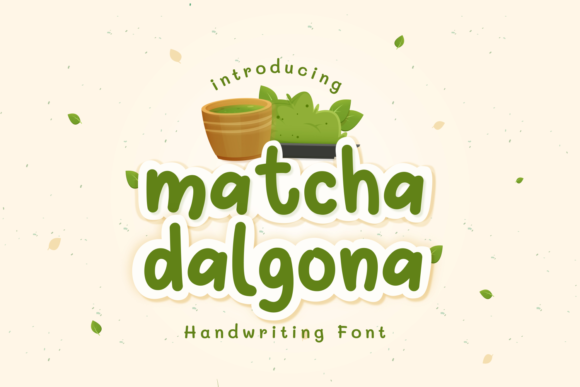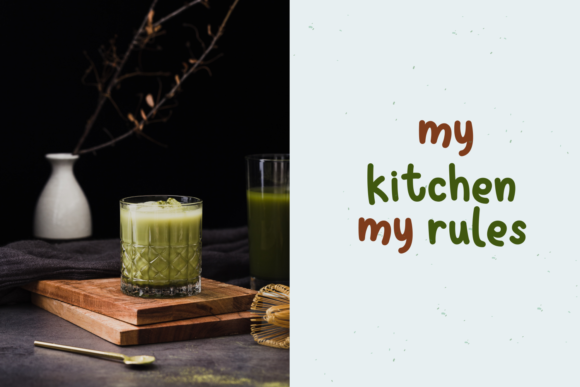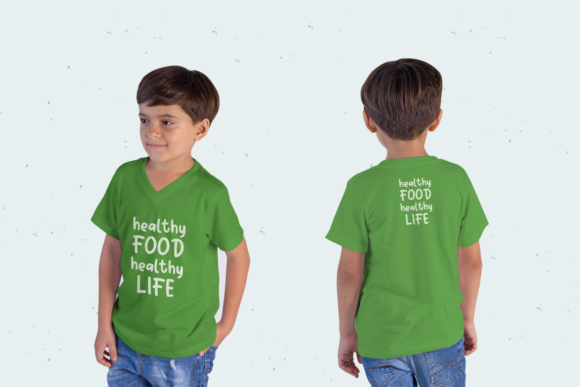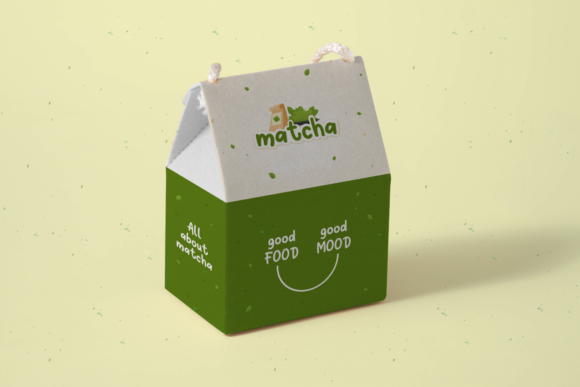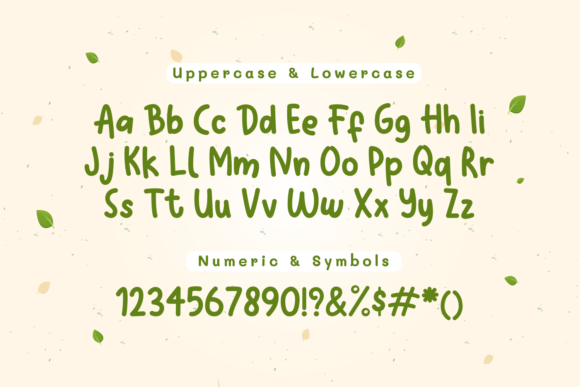
Matcha Dalgona Font
About Matcha Dalgona Font
Matcha Dalgona is a fun and whimsical paint brushed handwritten font. This font is perfect for children themed designs, especially when combined with bright colors.